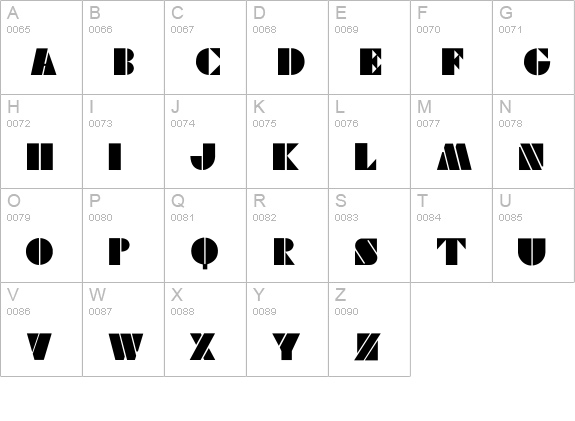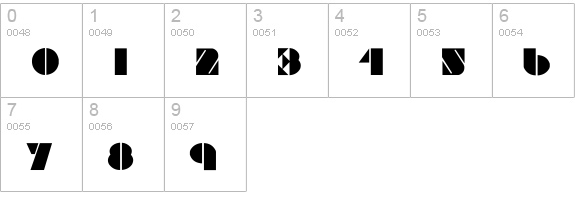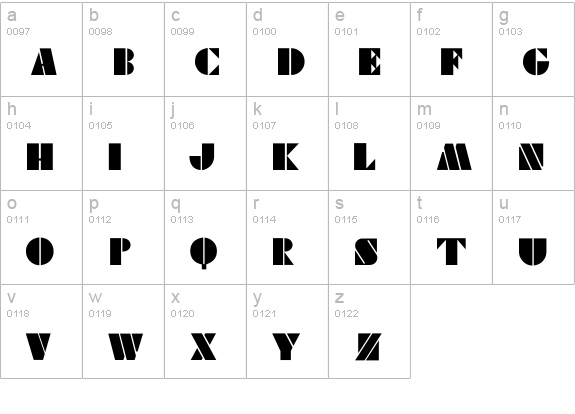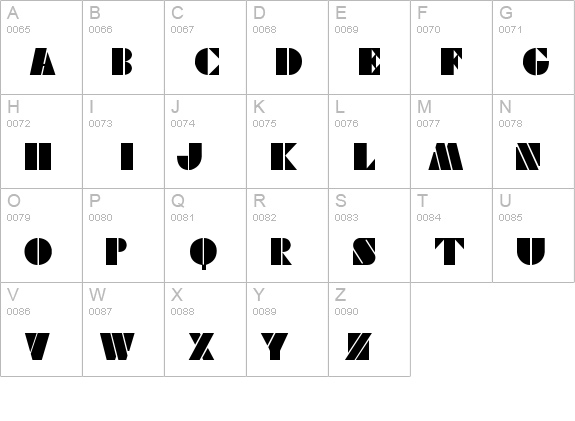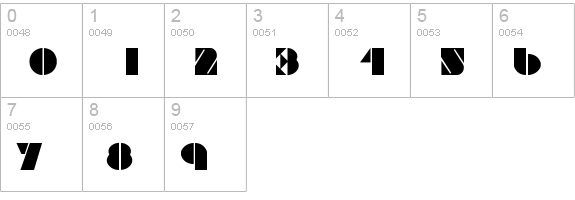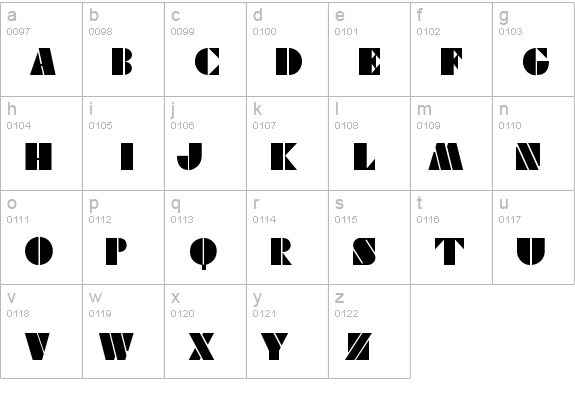
Viking Stencil Font Details
Introducing Viking Stencil, a bold and powerful font that pays homage to the mighty warriors of ancient Scandinavia. This unique typeface captures the essence of Viking culture, with its commanding presence and striking design. Perfect for adding a touch of Norse mythology to your projects, Viking Stencil is bound to leave a lasting impression. With its strong and rugged letterforms, this font is ideal for creating eye-catching headlines, logos, and branding materials. Each character is meticulously crafted to resemble the ancient stencils used by Vikings, giving your designs an authentic and historical feel. What makes Viking Stencil even more appealing is the fact that it is completely free to download. That's right, you can easily access this remarkable font at FontsMarket.com without spending a single penny. Whether you're a professional designer or a hobbyist, this font offers endless possibilities for unleashing your creativity. The versatility of Viking Stencil is another standout feature. It effortlessly adapts to various design themes, from modern and edgy to rustic and traditional. Whether you're working on a poster for a Viking-themed event or creating a logo for a sports team, Viking Stencil has you covered. Furthermore, this font is available in multiple weights, giving you the flexibility to experiment and find the perfect balance for your designs. You can choose from light, regular, bold, and even italic variations, ensuring that your text stands out exactly the way you envision it. So, why wait? Embrace the spirit of the Vikings and download Viking Stencil for free at FontsMarket.com today. Unleash your creativity, make a statement, and leave a lasting impression with this remarkable font.